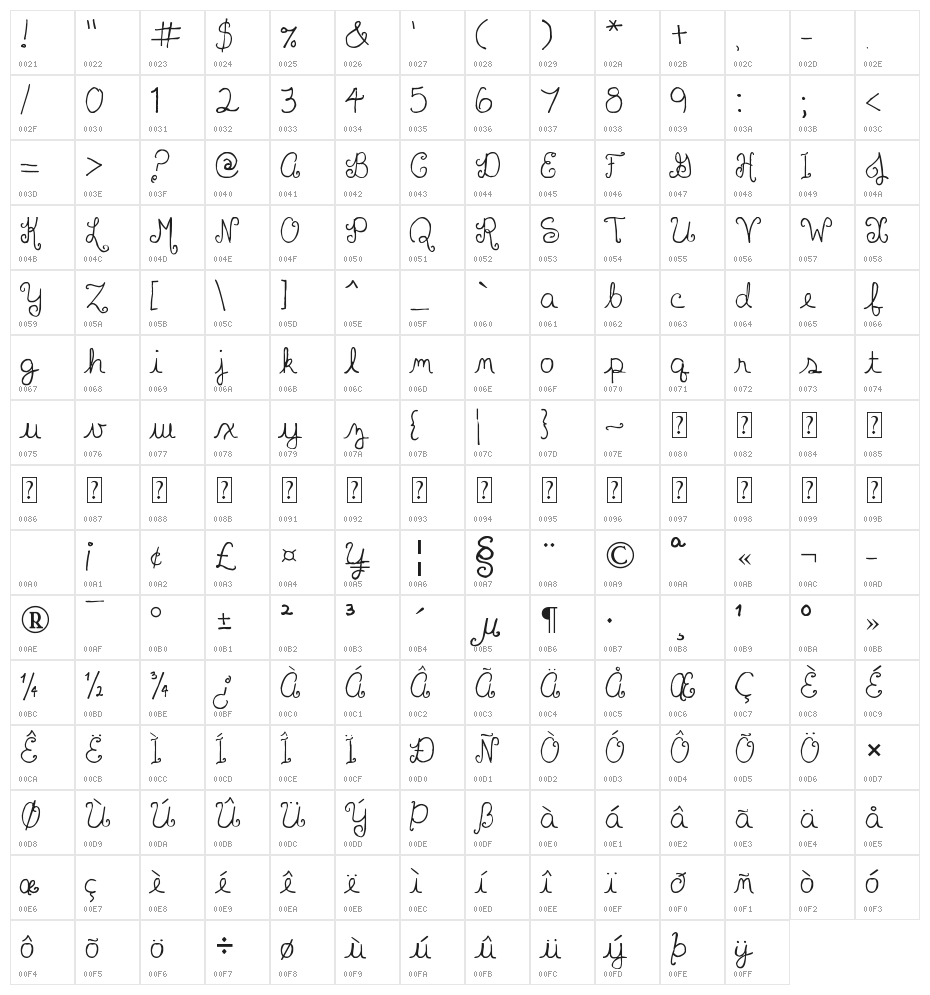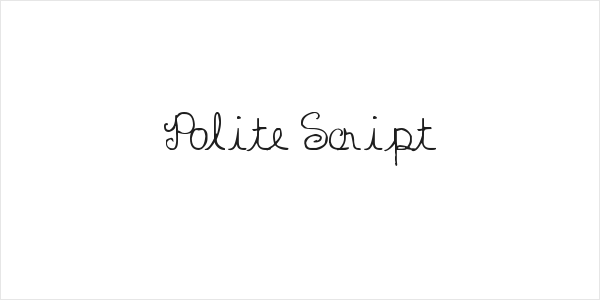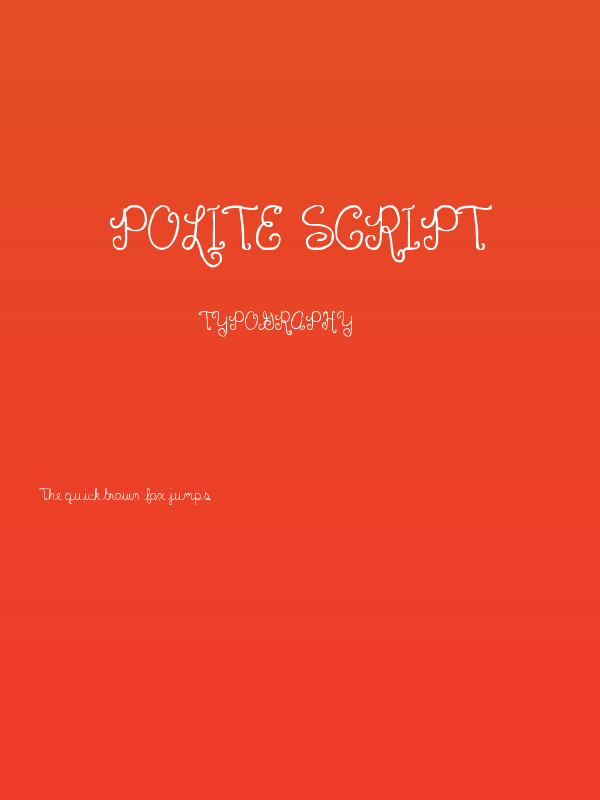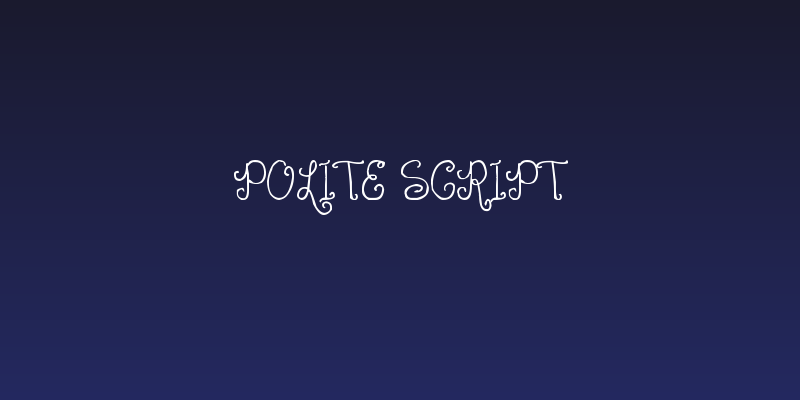
Polite Script Font
Polite Script Description
This font features a charming and whimsical script style, characterized by its flowing, cursive letters that mimic elegant handwriting. The uppercase letters are adorned with subtle loops and flourishes, adding a playful yet sophisticated touch. The lowercase letters maintain a consistent flow, enhancing readability while preserving the font's artistic flair. Numbers and special characters are crafted with the same attention to detail, ensuring a cohesive look across all text elements. This font's unique style makes it ideal for projects that require a personal and inviting feel.
Proposed ProjectsIdeal for wedding invitations, greeting cards, personal branding, and creative projects that require a touch of elegance and personality.